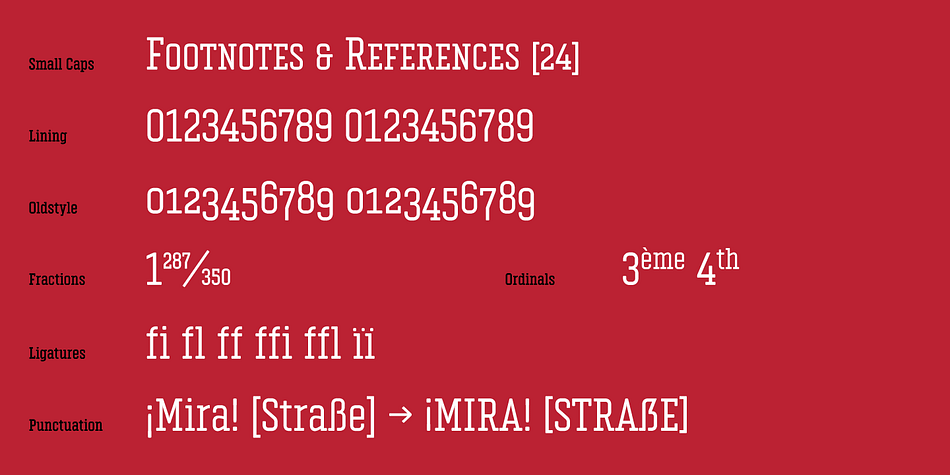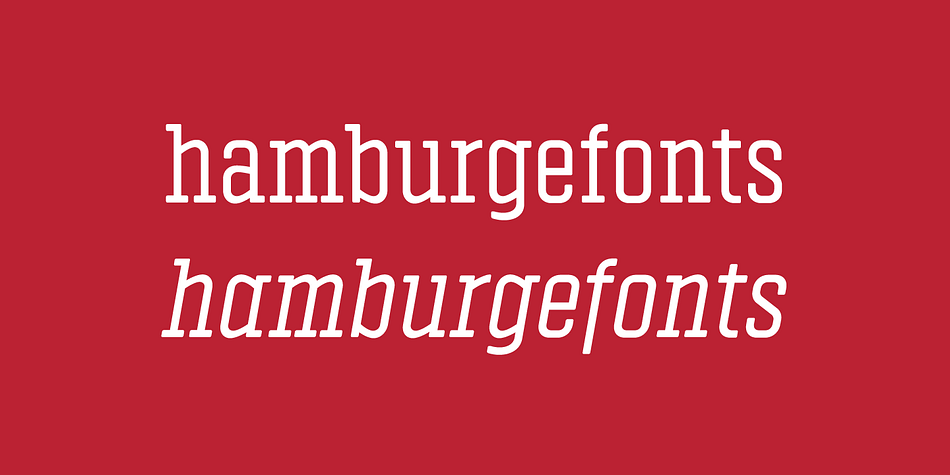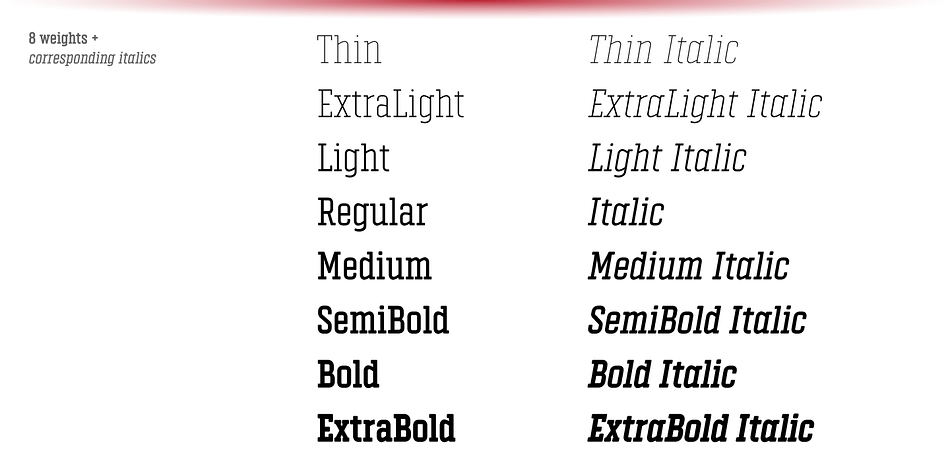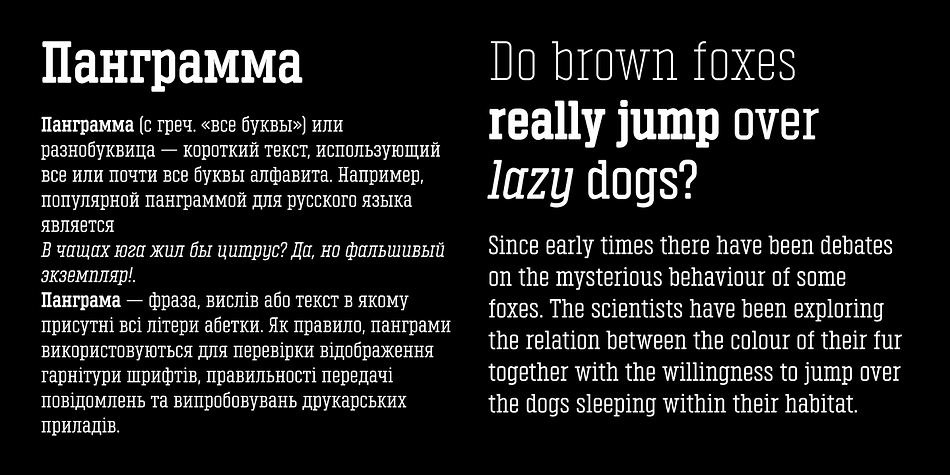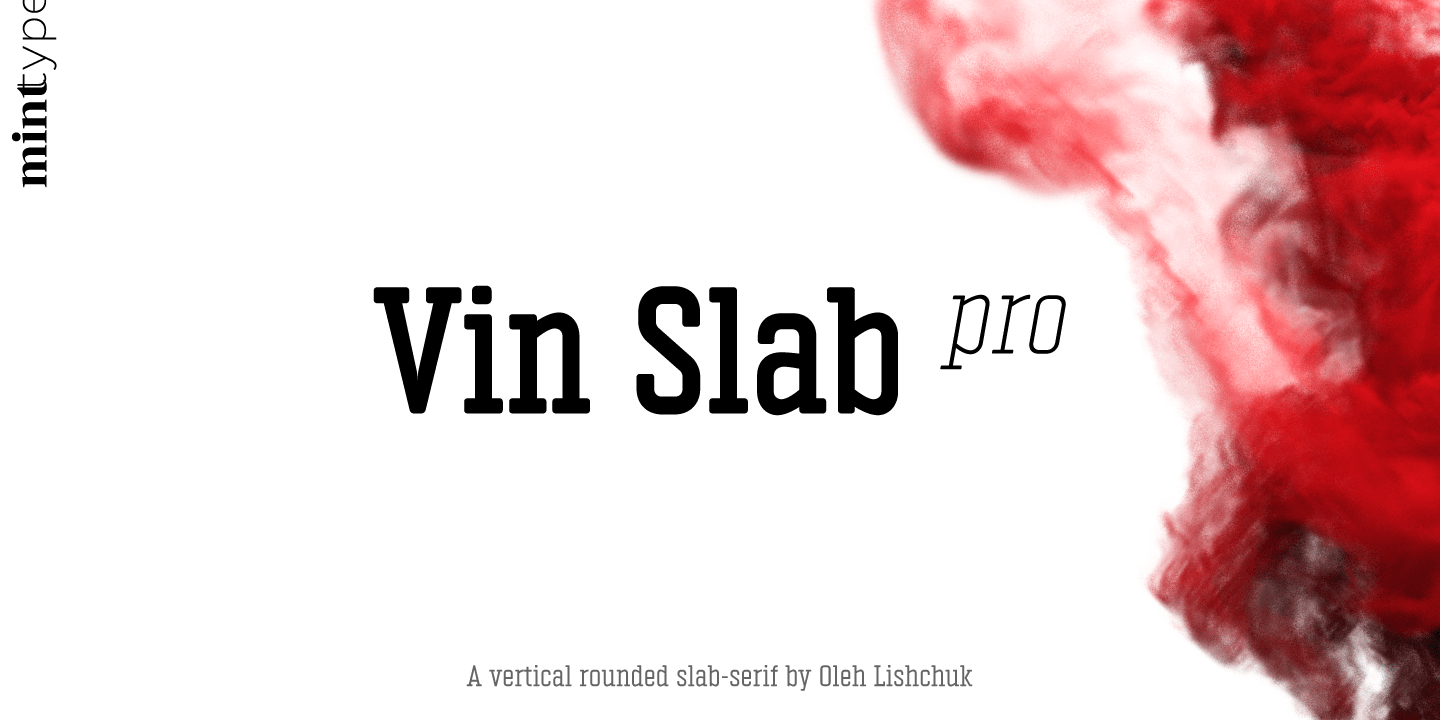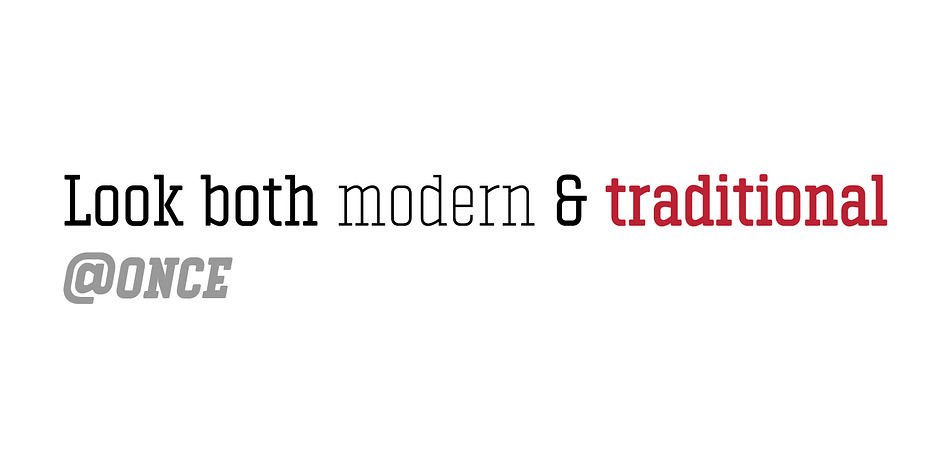
Designed by Oleh Lishchuk, Vin Slab Pro is a slab serif font family. This typeface has sixteen styles and was published by Mint Type.
Vin (translated from Ukrainian as “he”) is a superfamily consisting of three robust typefaces with pronounced vertical stems and rounded corners. All three typefaces feature very large x-height for even more expression and assertiveness.
Vin Slab Pro is a condensed rigid slab-serif with extra-large x-height and rounded corners. It is designed specifically for short texts to add significance and emphasis.